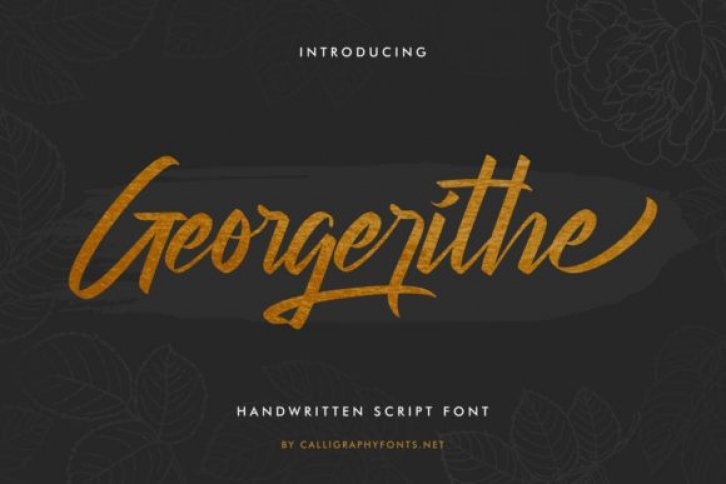
Georgerithe is a modern and luxurious handwritten font. This font is the ideal font for adding an adventurous and authentic feel to your next design idea!